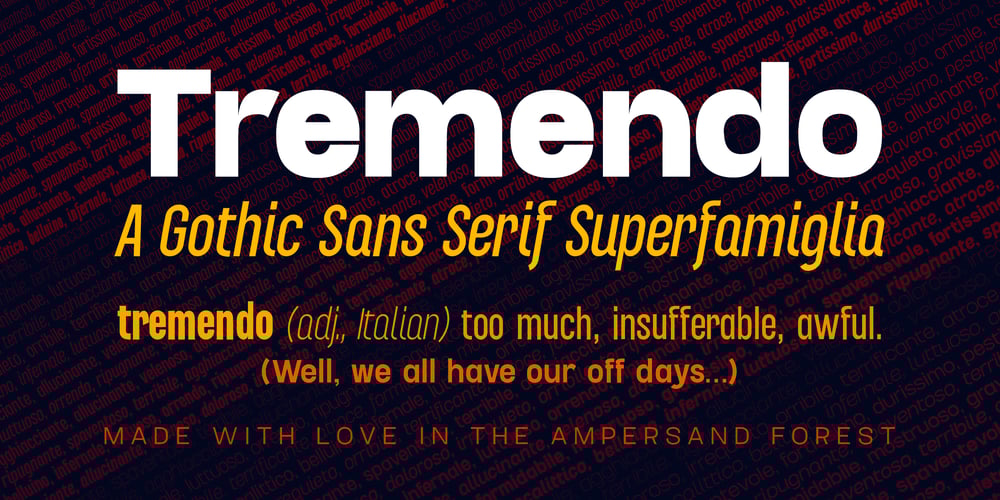
Tremendo
Tremendo font
Tremendo Font Family was designed by DC Scarpelli and published by The Ampersand Forest. Tremendo contains 48 styles and family package options. Tremendo is a gothic sans serif superfamily with a large number of widths and weights that make it a great choice for versatility, clarity, and dynamism. Built with both grotesque and geometric principles in mind, it’s remarkably useful for everything from print copy to the largest display applications. If you’re looking for a family that will serve your needs, and be noticed Tremendo is it!A note on the name: “Tremendo” is Italian for “too much, insufferable, awful.” It’s a tongue-in-cheek moniker for a family that’s rather monstrous in size and forceful in impact. Give it a try and you’ll see that it’s much more of a workhorse than it may at first seem to be!